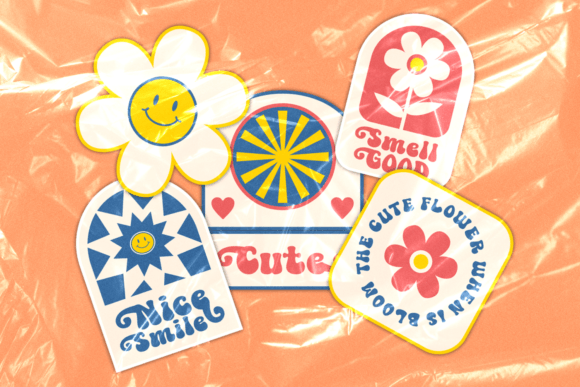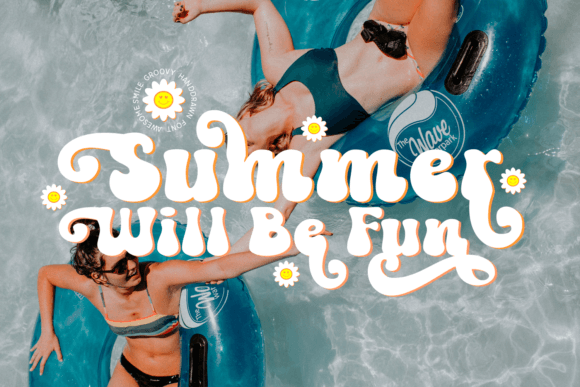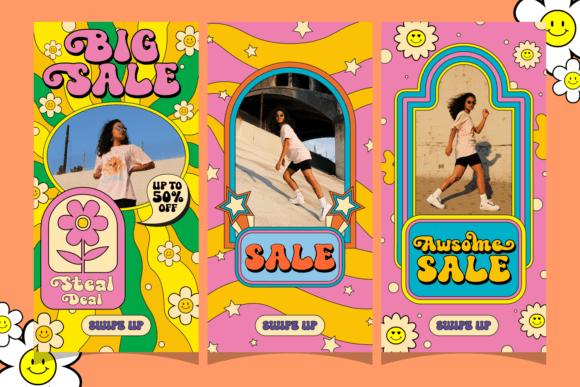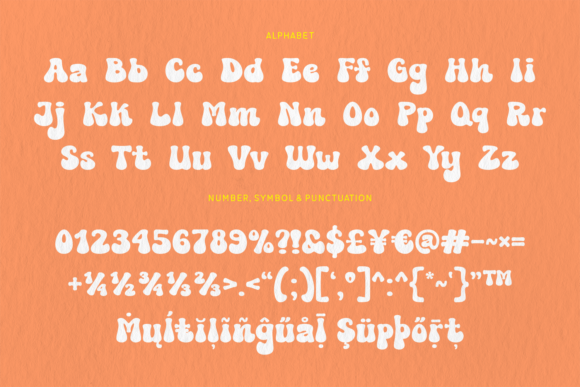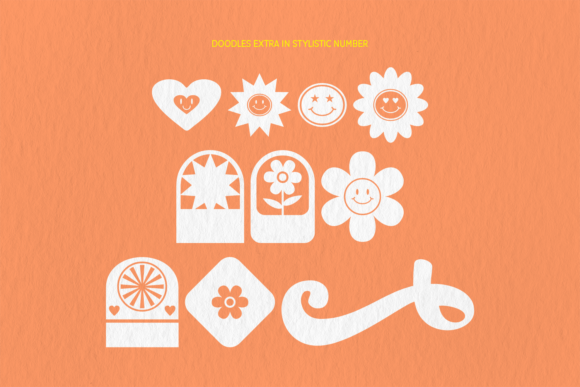
The Awesome Smile Font: A Joyful Addition to Your Design Library
Have you ever been in the middle of a design project, and suddenly, you just can’t seem to find the right font? I recall a particularly frustrating experience while working on a branding project for a children’s toy company. The client wanted a font that was playful, cheerful, and stood out. That’s when I stumbled upon the Awesome Smile font, and it completely transformed my design.
First Impressions: A Font that Puts a Smile on Your Face
Awesome Smile is a thick and joyful display font that is characterized by chubby letters and lovely swashes. This spectacular font has a way of making any creation stand out, and it’s perfect for designers, crafters, and creative hobbyists looking to add a touch of whimsy to their work.
• ✨ The font’s playful and cheerful personality makes it perfect for designs that require a bit of fun and whimsy.
• ✅ The chubby letters and lovely swashes add a touch of sophistication to any design.
• 💡 The font is PUA encoded, making it easy to access all the glyphs and swashes.
• 🎉 The font is versatile and can be used for a variety of design projects, from branding and advertising to packaging and signage.
While Awesome Smile is an amazing font, there are a few things to keep in mind. 🤔 For example, the font’s bold and playful style may not be suitable for designs that require a more formal or elegant look. ⚠️ Additionally, some users may find that the font’s swashes and glyphs can be a bit overwhelming if not used carefully.
The Designer Inspiration Behind Awesome Smile
The story behind Awesome Smile’s creation is one of passion and creativity. According to the font’s designer, the inspiration came from a desire to create a font that would bring joy and happiness to designers and their clients. The designer wanted to create a font that would stand out from the crowd and make any design project more fun and engaging.
Q: Is Awesome Smile suitable for body text?
A: While Awesome Smile is a beautiful font, it’s primarily designed for display purposes. It may not be the best choice for body text, as it can be a bit too bold and playful.